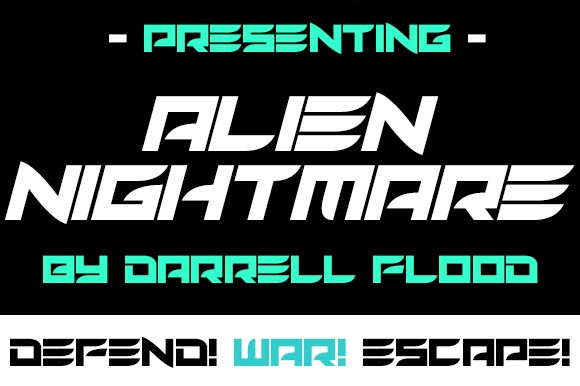
Alien Nightmare Font
Alien Nightmare Display Font, a modern sci-fi font that combines sharp angles and smooth curves for a unique look. Perfect for high tech themes, alien encounters and general science use!